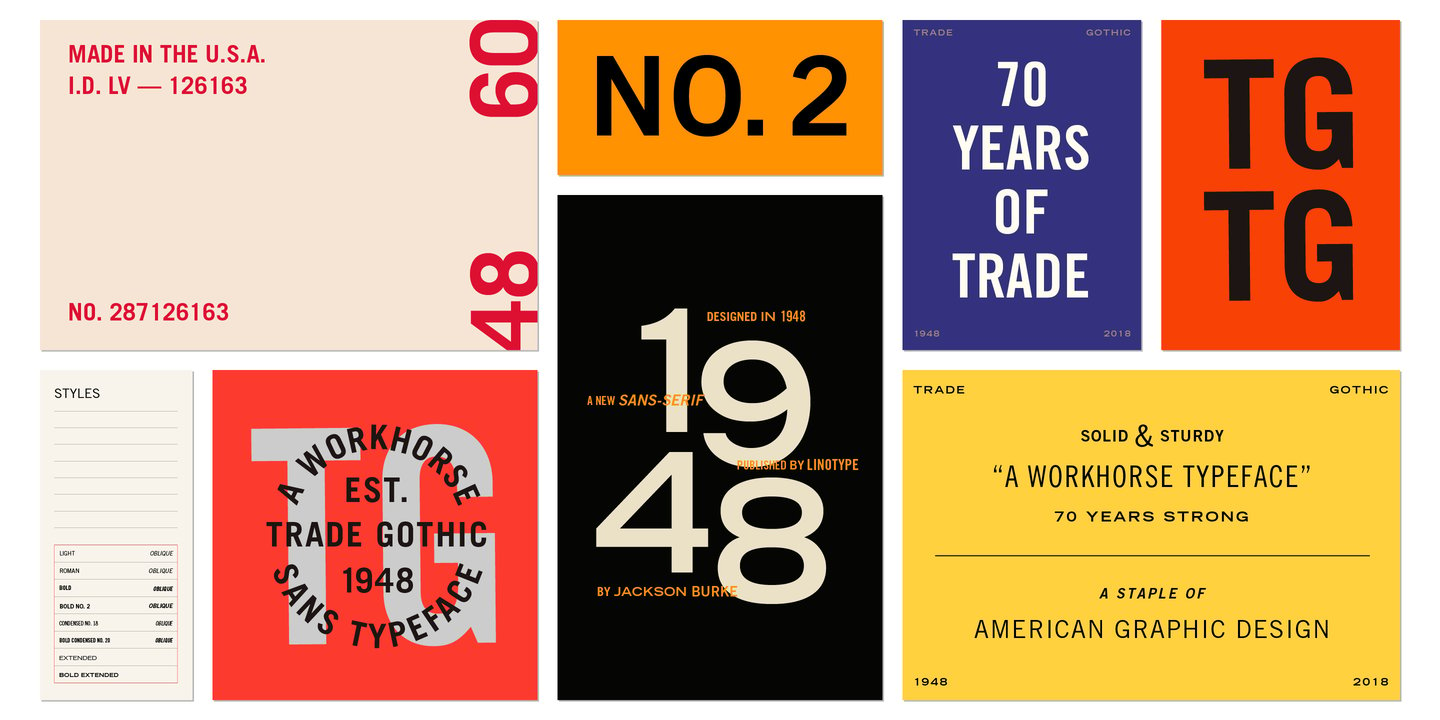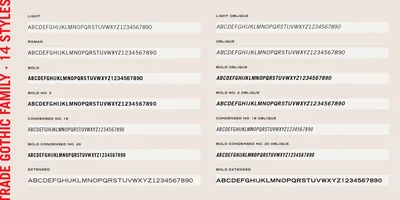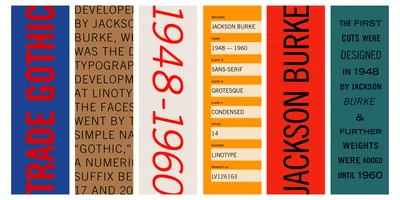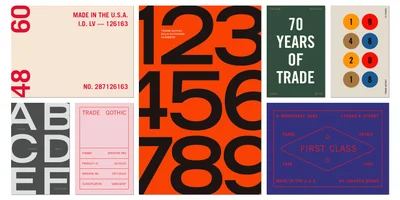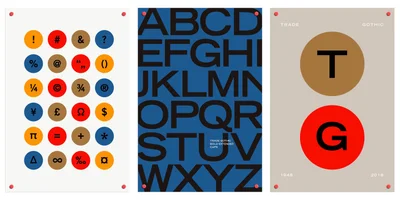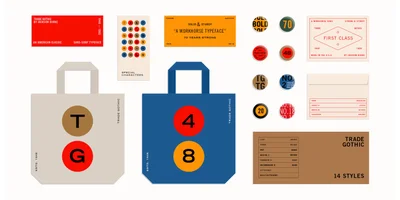
Work Sans vs Trade Gothic
This comparison helps you decide whether Work Sans can replace Trade Gothic without changing the overall typographic feel. With 80% similarity, Work Sans shares Trade Gothic's American gothic heritage with similar industrial character and utilitarian design philosophy. Work Sans also ships as a variable font, so you can dial in weights instead of being stuck with fixed steps.
Where You'll See These Fonts
Trade Gothic
- Magazine headlines
- Advertising
- Packaging design
- Sports media
- Fashion editorials
Recommended: Work Sans
- Shares Trade Gothic's readable character
- Particularly suited for technology brands and editorial design
- Variable font with continuous weight adjustment
- Delivers a minimal, clean, professional aesthetic
- Popular in healthcare-medical and enterprise-corporate design
Consider: Trade Gothic
- Designed specifically for headlines and wayfinding
- Used by Magazine headlines, Advertising